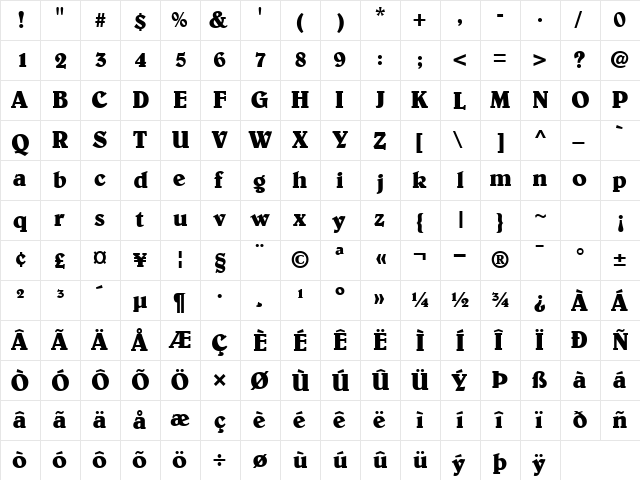
BarristerSSK Bold Font Preview
BarristerSSK Bold
Design Context for BarristerSSK Typeface
BarristerSSK offers clean, dependable letterforms without strong stylistic allegiance, making it a practical choice for designers who need flexibility. The heavy weight commands attention and anchors typographic hierarchies.